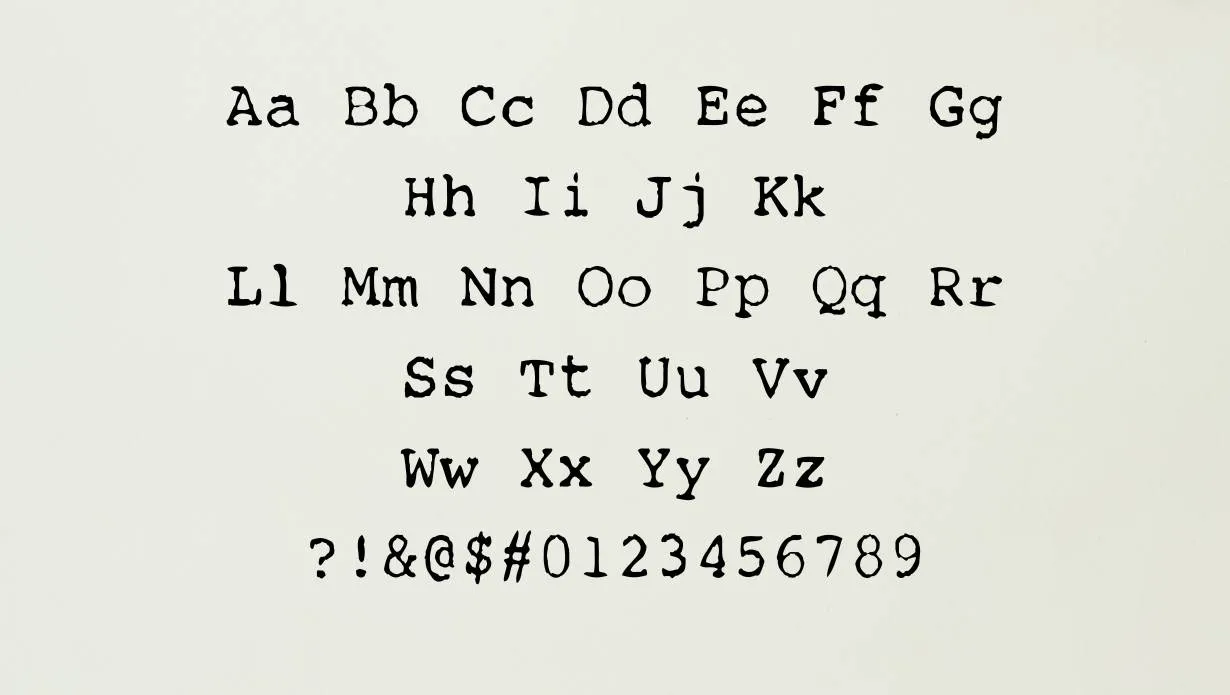
The Remington font echoes the nostalgia of classic typewriters, carrying a timeless charm in its design. Its monospaced characters evoke a sense of history and authenticity, often finding a home in various creative projects seeking a vintage touch.
This font brings an air of simplicity and genuineness to designs, frequently used in posters, logos, and retro-themed branding. Compatible with TTF, OTF, and WOFF file formats, it ensures flexibility across different design platforms.